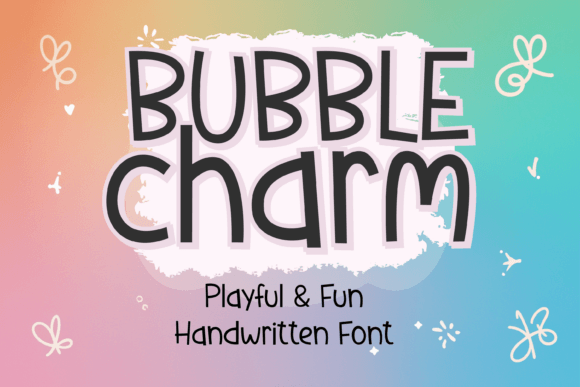
Introducing the Bubble Charm Font: A Playful Companion for Creative Endeavors
Have you ever been in the middle of a design project, and suddenly, you just can’t seem to find the right font? I recall a particularly frustrating experience when a client requested a custom design for a children’s party invitation. I wanted a font that was playful, yet elegant; fun, yet sophisticated. That’s when I stumbled upon the Bubble Charm Font, and it instantly became the perfect fit for the project.
The Bubble Charm Font: A Delightful Addition to Your Design Arsenal
The Bubble Charm Font is an adorable, spherically-styled, and mischievously playful handwritten typeface that is sure to infuse your creative endeavors with a spark of joy and a splash of whimsy. This font is defined by its lively, rounded letters with an artful twist inspired by spontaneous doodles. It’s delightfully perfect for applications on platforms such as Cricut, Silhouette, Procreate, and Canva, making it the ultimate companion for craft lovers seeking to infuse personalized charm into their distinctive designs.
- ✨ The playful, bubbly design that adds a touch of whimsy to any project
- ✅ The font’s versatility – it works beautifully for both digital and print designs
- 🎉 The extensive character set, including support for multiple languages
- 🤔 Some users might find the font a bit too playful for very formal designs
- ⚠️ The font’s rounded style may not be ideal for very long blocks of text
The Designer Inspiration Behind the Bubble Charm Font:
The Bubble Charm Font was designed with the intention of creating a playful and whimsical typeface that would bring joy and personality to creative projects. The designer, inspired by the carefree nature of childhood doodles, aimed to craft a font that would evoke a sense of fun and spontaneity. The result is a font that is both charming and versatile, perfect for a wide range of design applications.